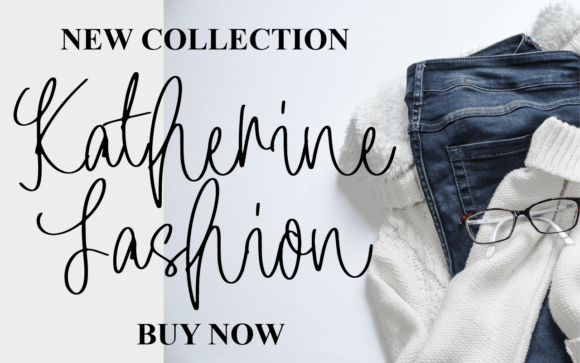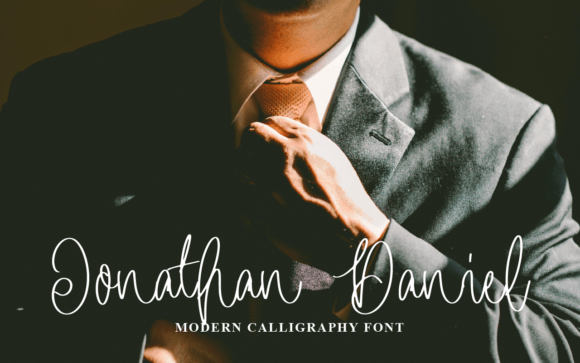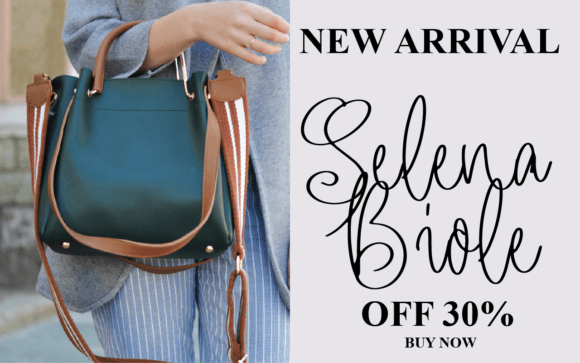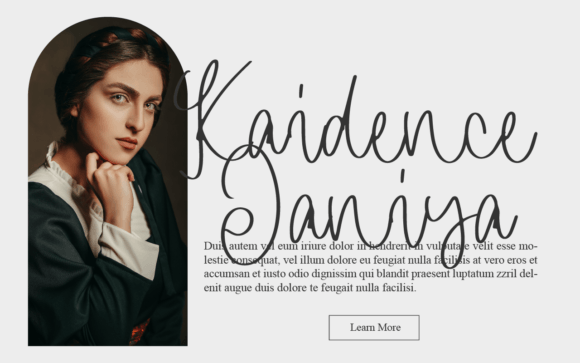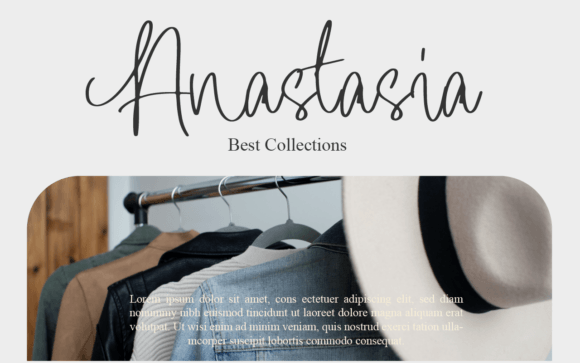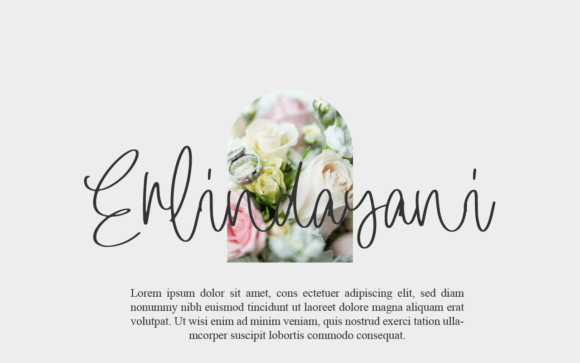
Introducing Amelia Font: The Epitome of Romantic and Sweet Calligraphy
Are you a designer or crafter looking for a typeface that exudes luxury and sophistication? Look no further than Amelia Font, a romantic and sweet calligraphy typeface that is sure to elevate your design projects to new heights. With its unique and flowing characters that dance along the baseline, Amelia Font is the perfect addition to any creative endeavor.
The Characteristics of Amelia Font
Amelia Font is a beautifully crafted calligraphy typeface that boasts a range of characteristics that set it apart from other fonts. Its most distinctive feature is its romantic and flowing script, which is reminiscent of traditional calligraphy. The characters in Amelia Font are designed to dance along the baseline, creating a sense of movement and fluidity that is both visually appealing and engaging.
The Benefits of Using Amelia Font
So why should you choose Amelia Font for your design projects? Here are just a few benefits of using this stunning typeface:
- Luxury and Sophistication: Amelia Font exudes luxury and sophistication, making it perfect for high-end design projects that require a touch of elegance.
- Romantic and Whimsical: The romantic and whimsical nature of Amelia Font makes it ideal for projects that require a touch of personality and charm.
- Versatile: Amelia Font is a versatile typeface that can be used in a range of design projects, from wedding invitations and stationery to branding and packaging.
- Easy to Read: Despite its ornate and flowing script, Amelia Font is surprisingly easy to read, making it perfect for use in body text as well as headlines.
Using Amelia Font in Your Design Projects
So how can you use Amelia Font in your design projects? Here are a few ideas to get you started:
- Wedding Invitations and Stationery: Amelia Font is perfect for wedding invitations, stationery, and other paper goods that require a touch of luxury and romance.
- Branding and Packaging: Use Amelia Font to add a touch of elegance and sophistication to your branding and packaging.
- Signage and Displays: Amelia Font is a great choice for signage and displays that require a touch of personality and charm.
- Digital Design: Amelia Font can also be used in digital design projects, such as website headers and social media graphics.
Tips for Working with Amelia Font
Here are a few tips for working with Amelia Font:
- Use it Sparingly: Amelia Font is a bold and eye-catching typeface, so use it sparingly to avoid overwhelming your design.
- Pair it with a Simple Font: Pair Amelia Font with a simple font to create visual interest and contrast.
- Experiment with Colors: Amelia Font looks great in a range of colors, so experiment with different hues and shades to find the perfect combination for your design.
In conclusion, Amelia Font is a romantic and sweet calligraphy typeface that is sure to add a luxury spark to any design project. With its unique and flowing characters, versatile design, and easy-to-read script, Amelia Font is the perfect choice for designers and crafters looking to elevate their creative endeavors. Whether you’re working on a wedding invitation, branding project, or digital design, Amelia Font is sure to impress.